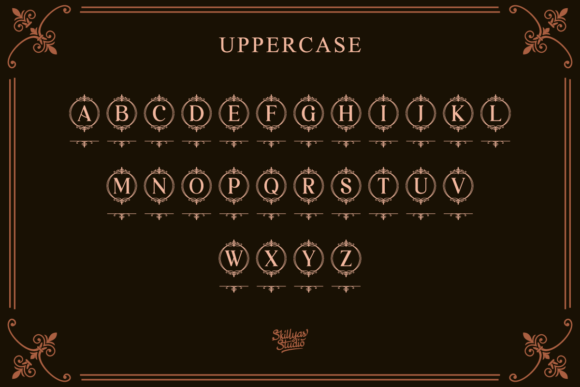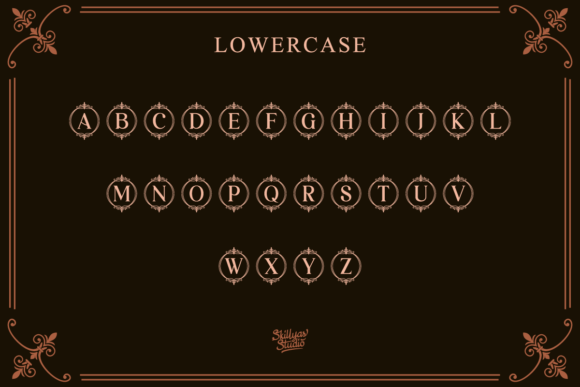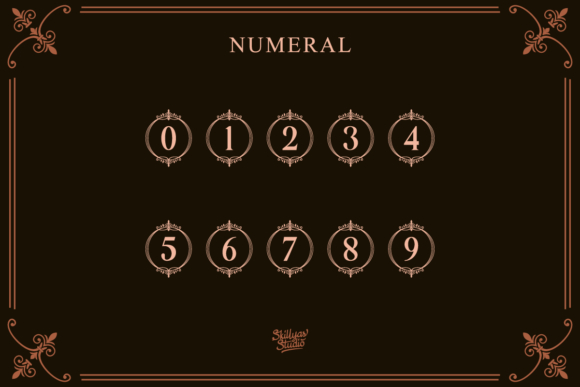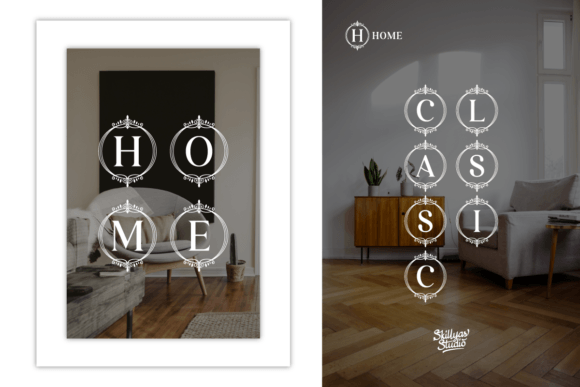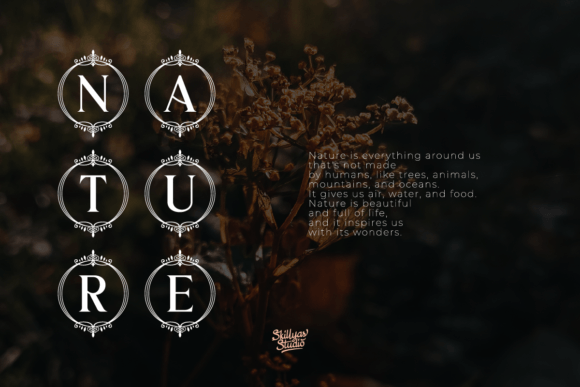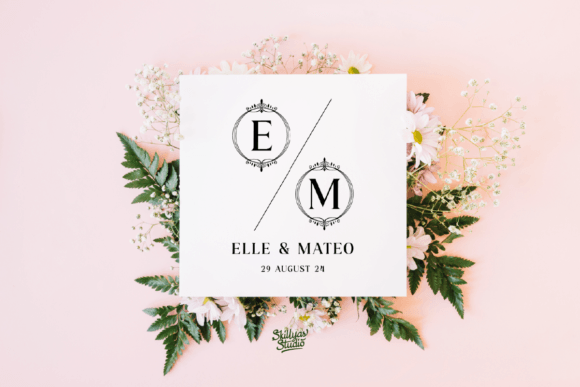
Introduction to King Florist Font
Immerse yourself in the grandeur of our King Florist Monogram Font.
Adorned with regal and botanical elements, every character exudes sophistication, making it an ideal choice for high-end, luxury branding These exquisite letters are not only mesmerizing but also imbue any creative project with an essence of elegance.